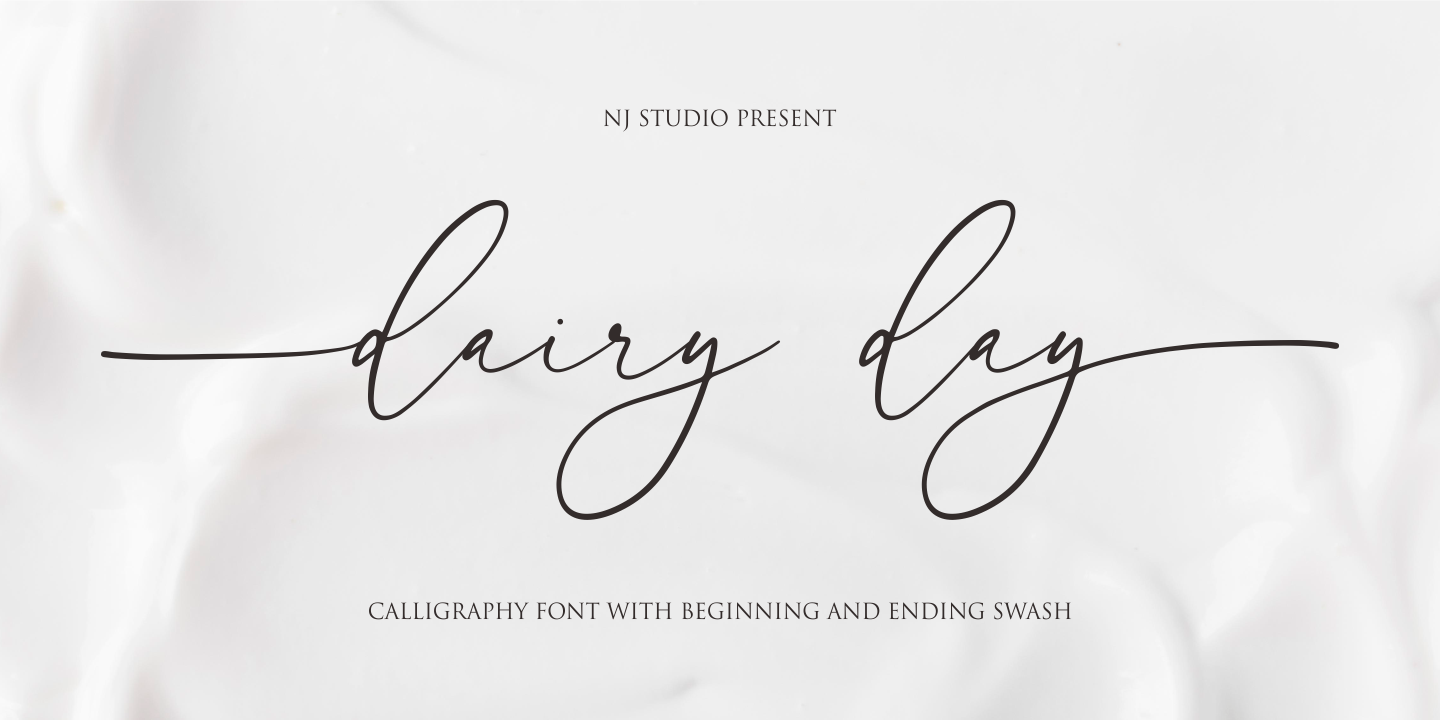
The Dairy Day Font is perfect for organic milk packaging, farm-to-table restaurant branding, dairy product labels, countryside bakery signage, agricultural fair posters, farm market logos, artisan cheese packaging, and wholesome food advertising. This charming typeface brings fresh farmhouse appeal and pastoral simplicity to designs celebrating dairy farming, rural life, and natural food products.
What makes Dairy Day Font so exciting is its ability to capture the wholesome, fresh-from-the-farm feeling through carefully crafted letterforms that evoke images of rolling pastures, contented cows, and pure, natural dairy goodness. The font embodies the trust and authenticity that consumers seek in farm-fresh products, making it ideal for brands emphasizing quality, purity, and traditional farming values.
The Dairy Day Font family includes regular, condensed, and handwritten variations, providing designers with versatile options to create authentic farm-style typography that maintains the wholesome dairy atmosphere across different packaging designs and agricultural marketing applications.
Whether you're developing dairy product brands, designing farm-fresh marketing campaigns, or creating countryside-themed content, the Dairy Day Font Free Download delivers exceptional pastoral charm for agricultural-inspired projects. This delightful typeface helps designers communicate messages of freshness, purity, and farm-to-table quality.